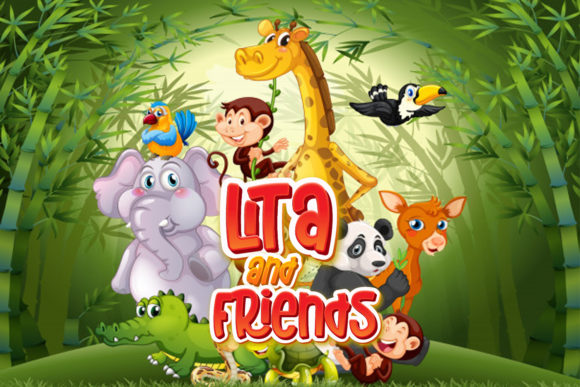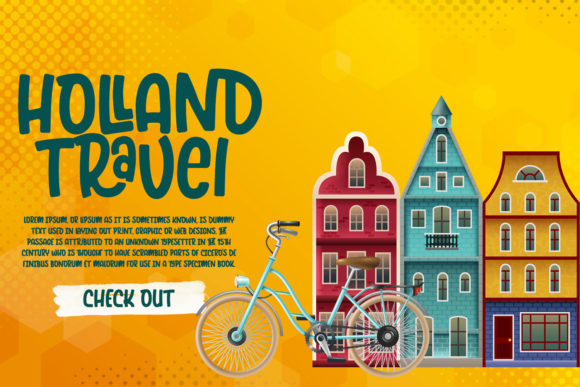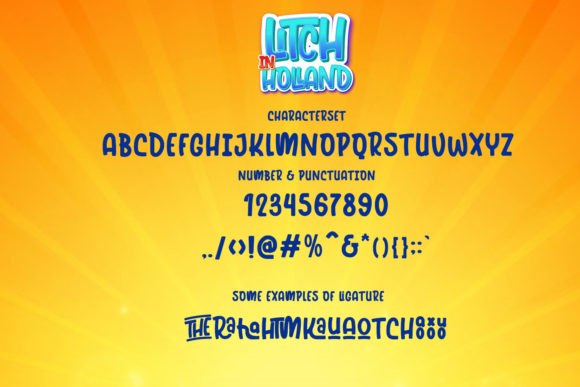
Introduction to Litch in Holland Font
Litch in Holland is a cute and quirky display font.
It will add an incredibly joyful touch to your designs Add this beautiful display font to each of your creative ideas and notice how it makes them stand out.